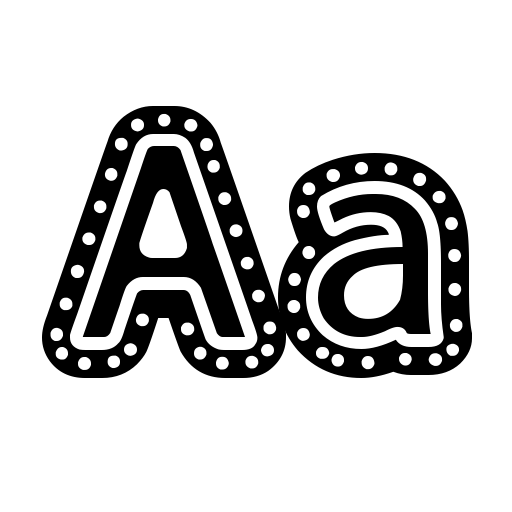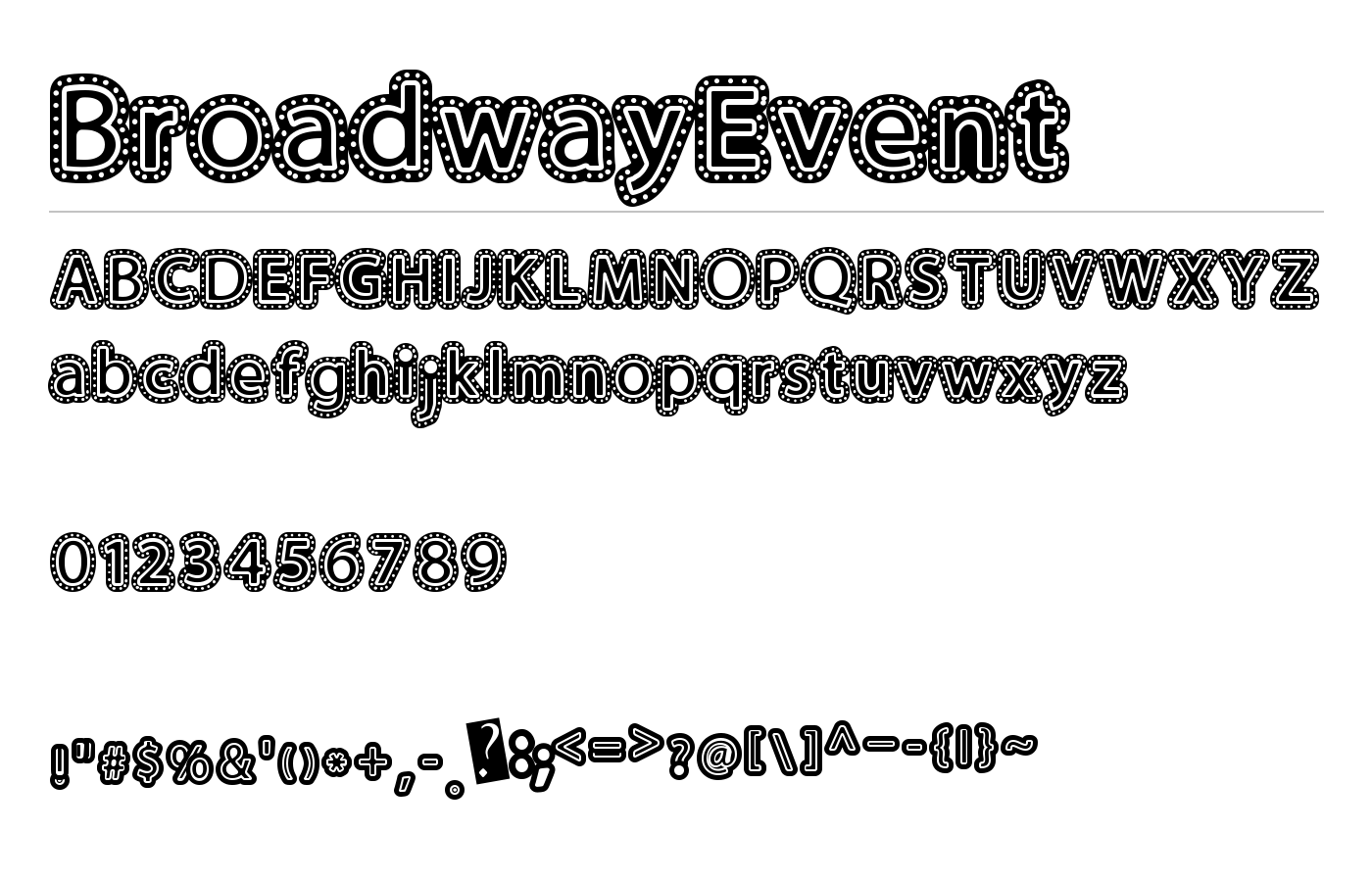
BroadwayEvent is a playful and bold sans serif font featuring thick, rounded letterforms outlined with a dotted pattern that evokes the lively and glamorous atmosphere of vintage marquee lights. Its chunky weight and clear, uniform shapes make it perfect for eye-catching headlines, event posters, and branding that wants to convey fun, excitement, and a festive spirit. This font works especially well for entertainment, party invitations, or retro-themed designs where a vibrant, standout look is needed.
BroadwayEvent Font
About BroadwayEvent Font
| Font family | BroadwayEvent Font |
| Designer | Max Infeld |